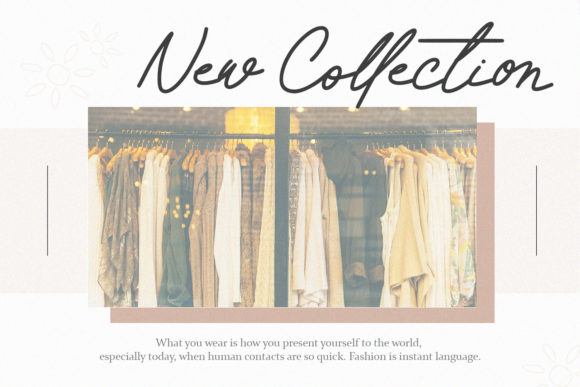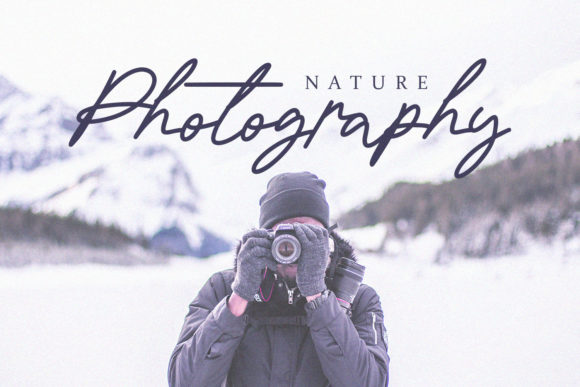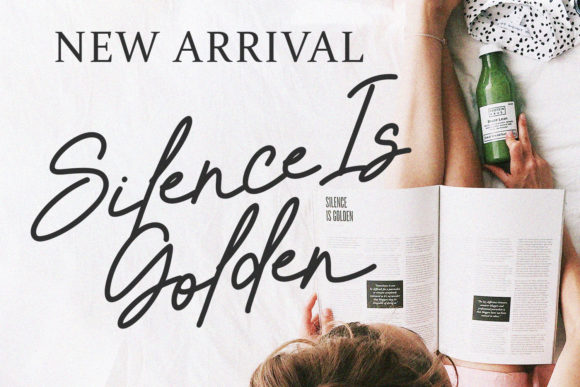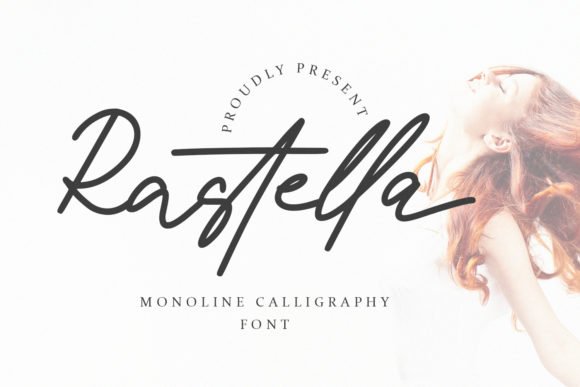
Introduction to Rastella Font
Rastella is a stunning handwritten font.
Simple and easy to use, this font will be very beautiful if you mix it with your various craft designs This font is PUA encoded which means you can access all of the glyphs and swashes with ease.
Key Features of Rastella Font
Why Choose Rastella Font?
Rastella Font offers exceptional quality and versatility, making it a valuable addition to your design toolkit. Whether you’re creating for personal projects or commercial use, Rastella Font delivers professional results.